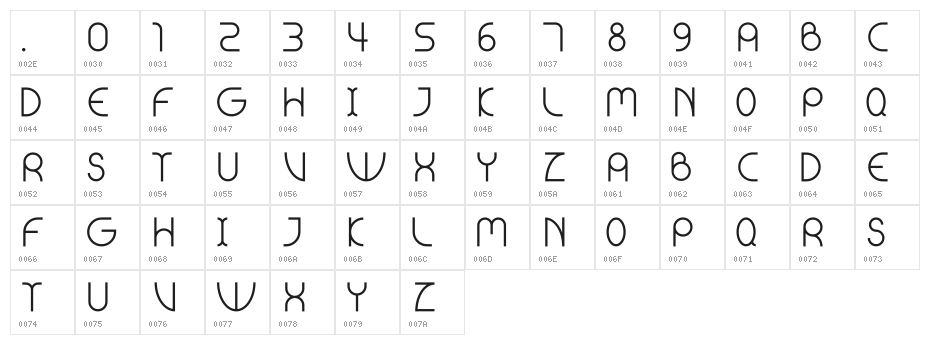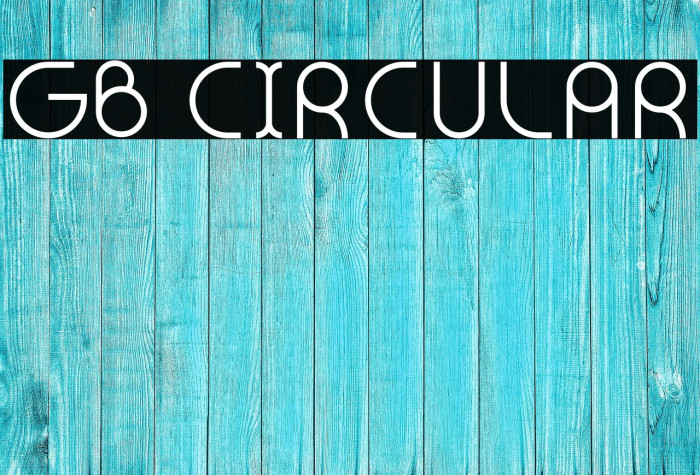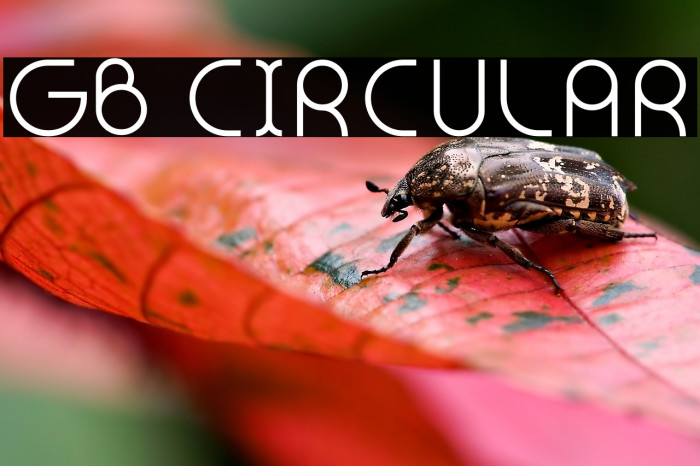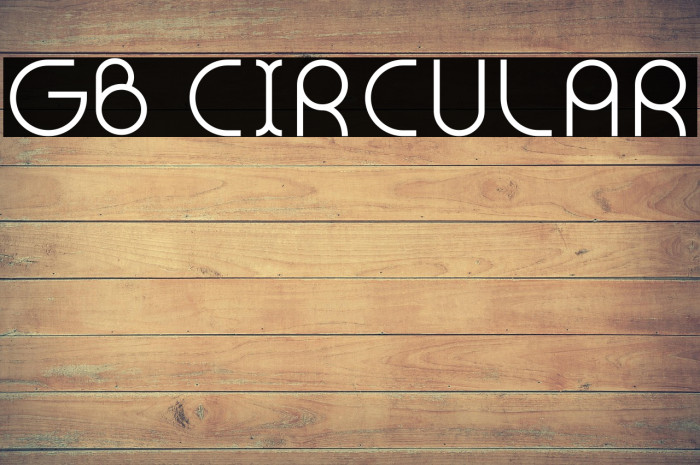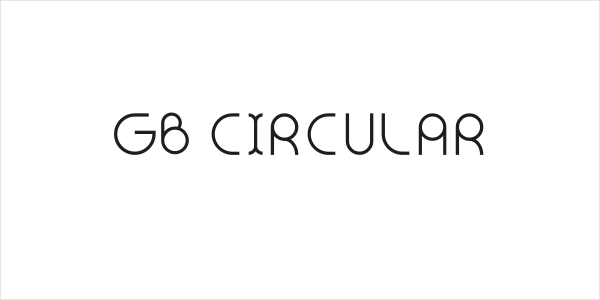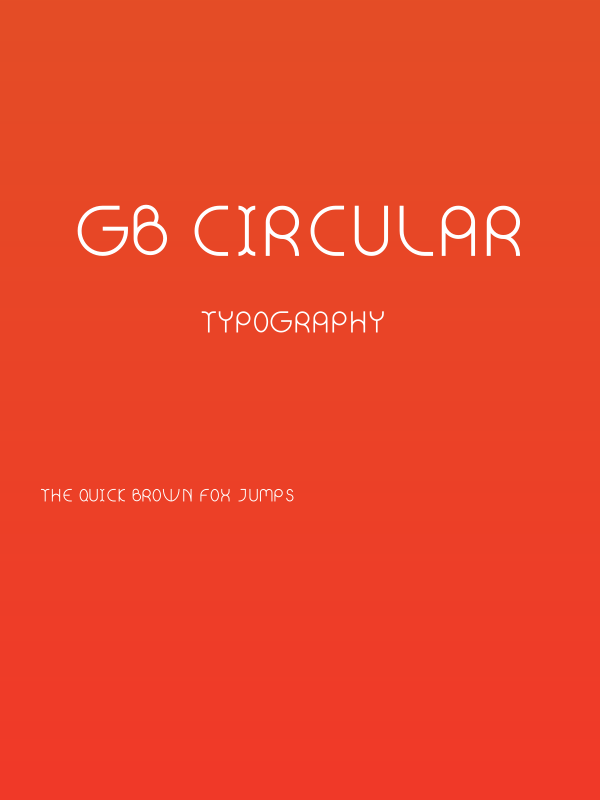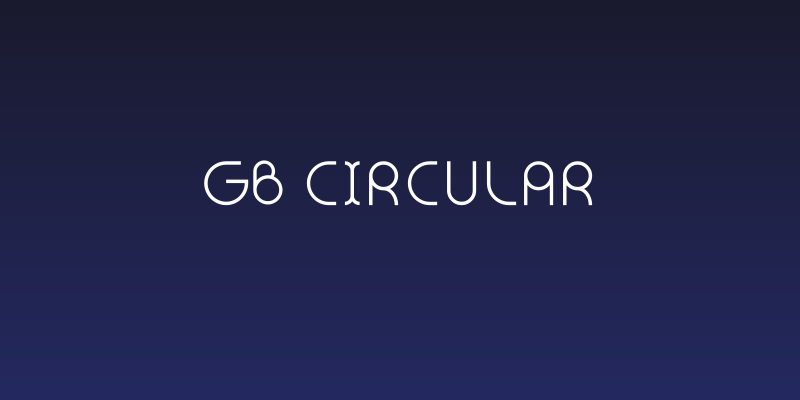
GB Circular Font
GB Circular Description
This font features a modern, geometric style with clean, circular forms and consistent line weights. The characters are constructed with a focus on symmetry and balance, creating a harmonious and aesthetically pleasing appearance. The uppercase letters exhibit a uniform height, while the lowercase letters maintain a similar structure, enhancing readability. The numerals are designed to match the overall style, with rounded edges and a consistent stroke width. This font's simplicity and elegance make it versatile for various design applications.